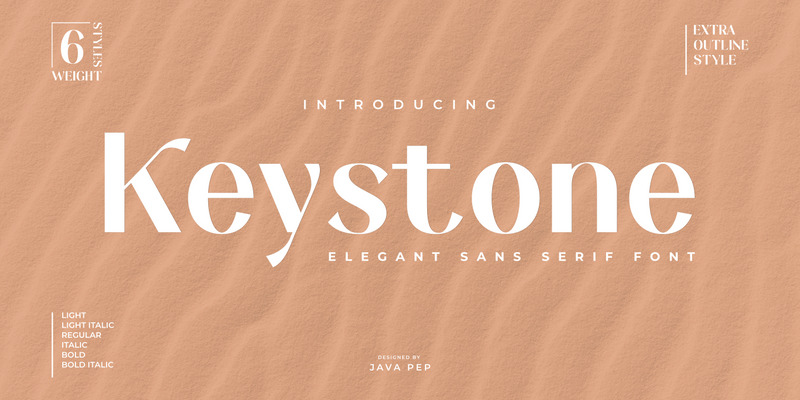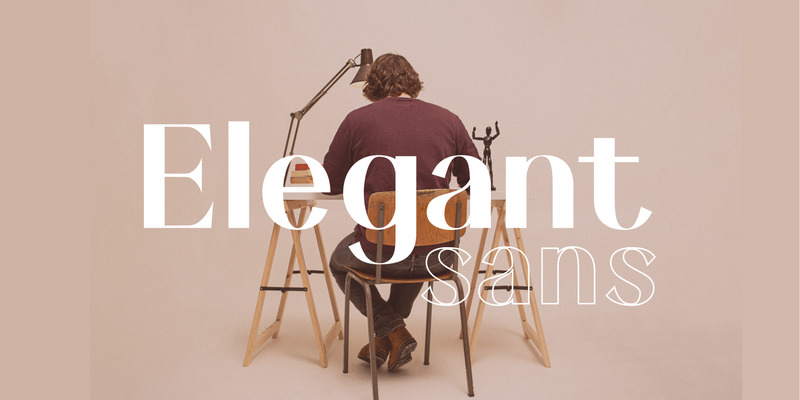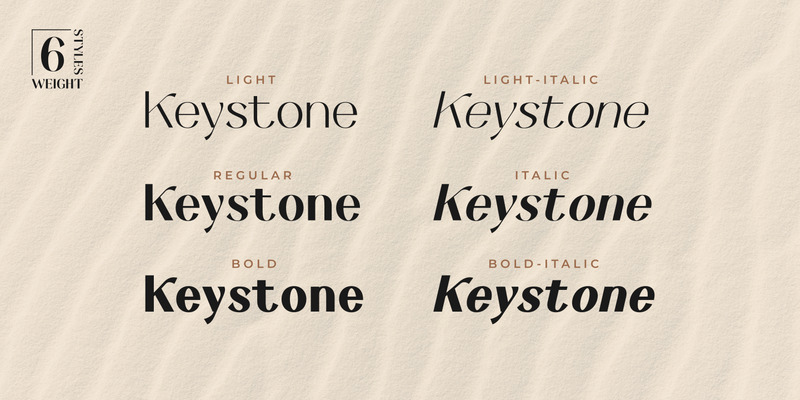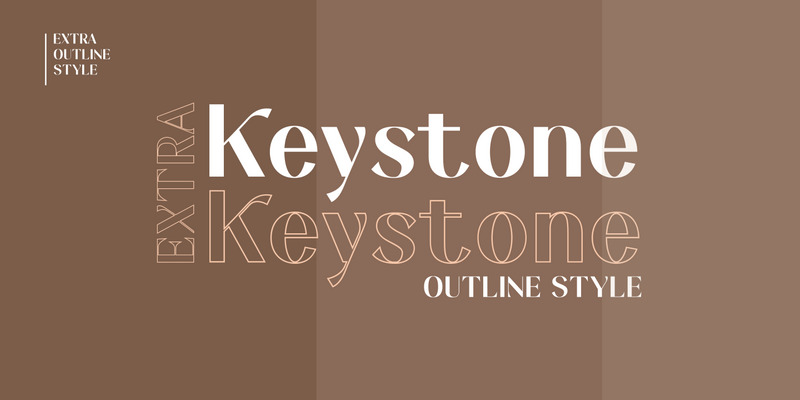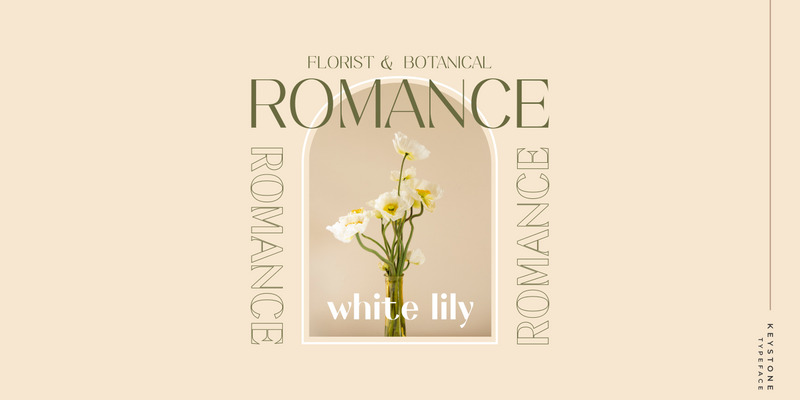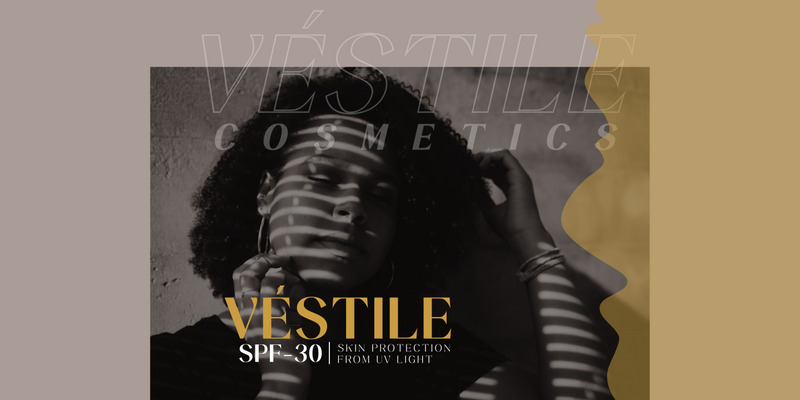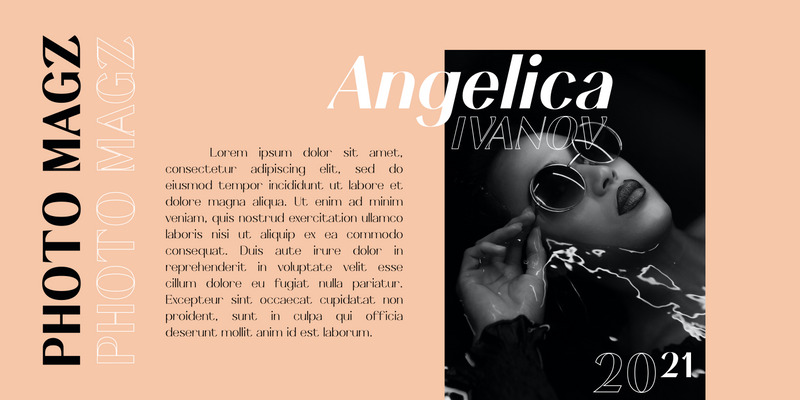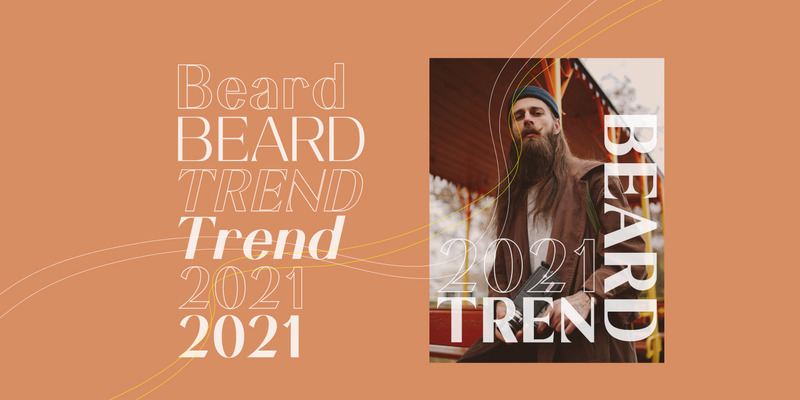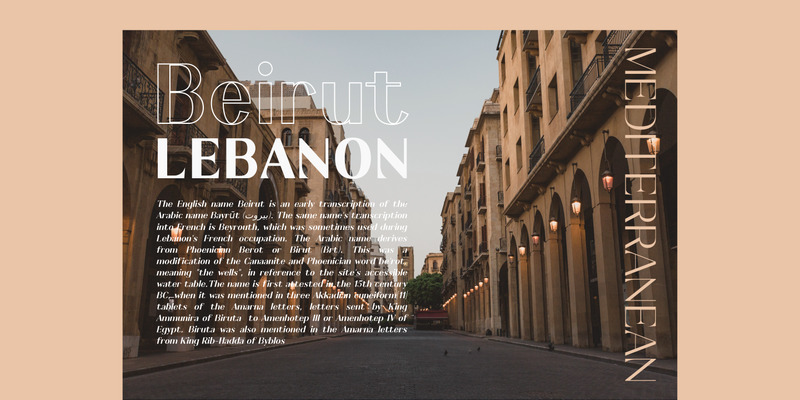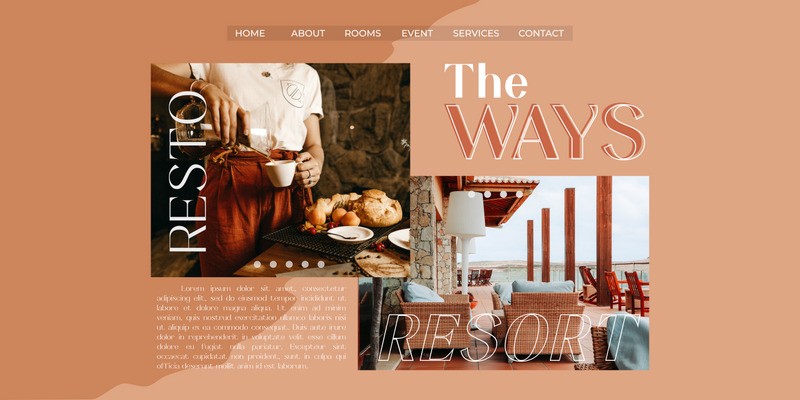
Keystone - an elegant sans
Keystone is an elegant family font that comes with 6 weight styles and extra outline styles, this font also supports more than 20 languages. Keystone font is perfect for display and highlights text such as a magazine or cover book, advertisements, logotype, branding, fashion, quotes, blog or website header, photography, invitations, poster, postcard, etc. Keystone font also supports more than 20 languages.